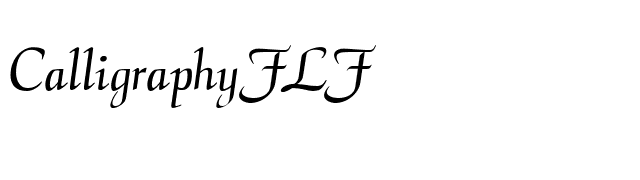
The writing is readable but is usually extravagant and embellished with flourishes.
Calligraphy flf font free download. File name size download. The calligraphy font has been downloaded 238895 times. It usually involves a nibbed pen or brush. The main sub styles are traditional calligraphy and modern calligraphy.
The calligraphyflf font contains 234 beautifully designed characters. Truetype 228 glyphs 234 characters. Alexandria flf medium italicttf. We have thousands of free fonts available for you.
Alexandria flf bold italicttf. This font has been downloaded 10000 times. Calligraphy is an artistic writing style where the pressure is varied to create thick and thin lines all in a single stroke.